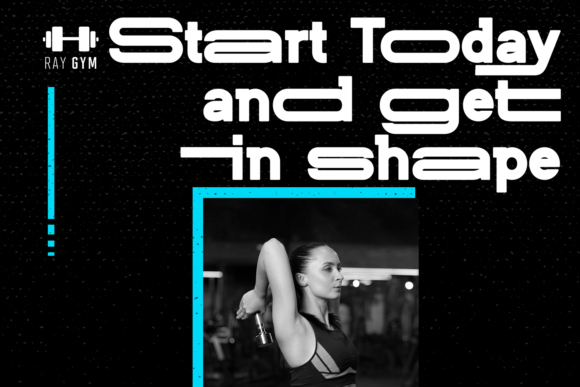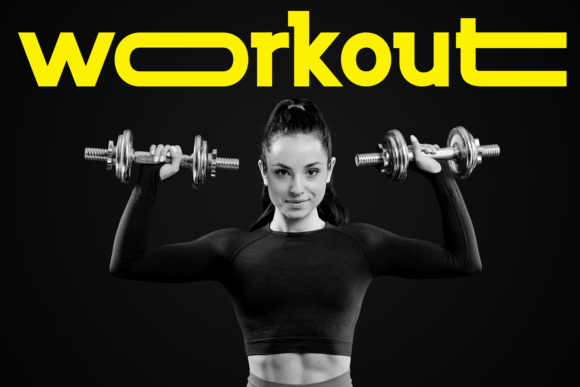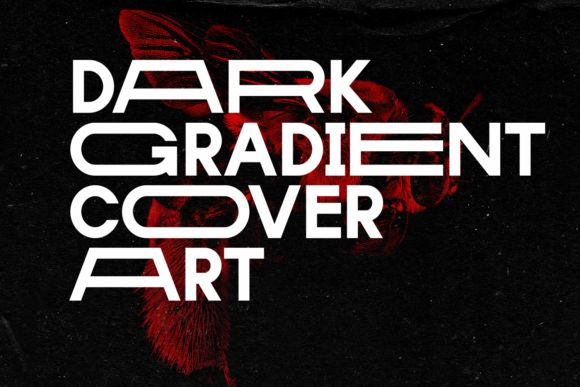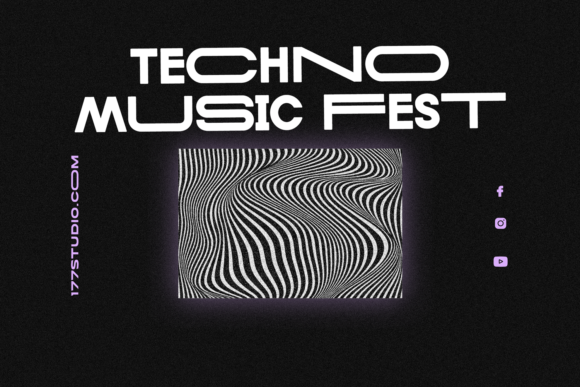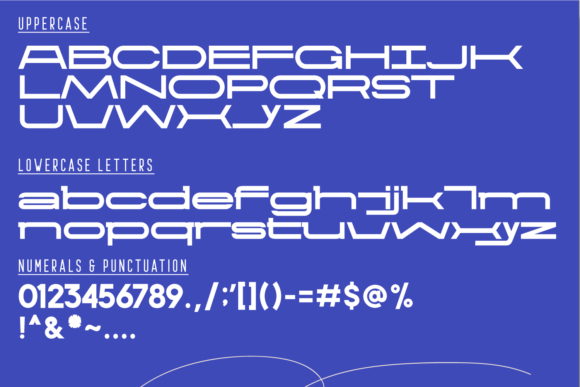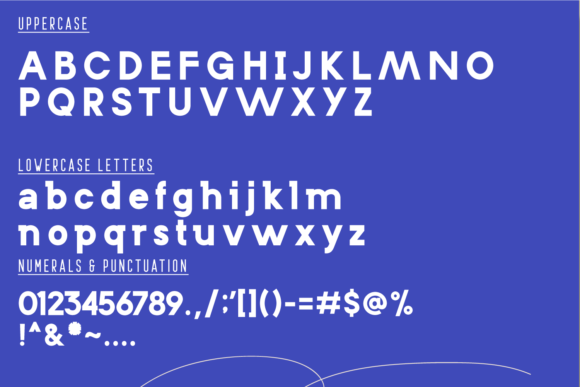
Introducing Gravity Points Font: Elevate Your Designs with Minimal Elegance
In the world of design, typography plays a crucial role in conveying messages, evoking emotions, and creating visual impact. For designers and crafters seeking a font that embodies minimalism and sophistication, Gravity Points Font is an exceptional choice. This display font is meticulously crafted to bring a touch of elegance and modernity to a wide range of projects, making it a versatile addition to your creative toolkit.
What Makes Gravity Points Font Stand Out?
Gravity Points Font is characterized by its clean lines, neat appearance, and minimalistic design. This font is not just a typeface; it’s a statement piece that can elevate your designs, making them stand out in a crowded digital landscape. Whether you’re working on a branding project, a website, a digital art piece, or any other creative endeavor, Gravity Points Font can be seamlessly integrated to add a layer of sophistication and professionalism.
One of the key advantages of Gravity Points Font is its incredible versatility. It can be matched with an astonishingly large set of projects, thanks to its universal appeal and timeless design. From modern digital platforms to traditional print materials, this font adapts effortlessly, ensuring your designs look coherent and visually appealing across different mediums.
Gravity Points Font takes convenience to the next level with its PUA (Private Use Area) encoding. This feature allows designers to access all the glyphs and swashes easily, providing the flexibility to experiment with various typographic elements without hassle. PUA encoding ensures that you can unlock the full potential of the font, making it easier to create unique and captivating designs.
Applications of Gravity Points Font
The applications of Gravity Points Font are vast and varied. Here are a few examples of how you can incorporate this beautiful font into your projects:
- Branding and Logotypes: Use Gravity Points Font to create memorable logos and brand identities that exude elegance and professionalism.
- Web Design: Enhance your website’s typography with Gravity Points Font, making your digital space more inviting and modern.
- Digital Art: Add a textual element to your digital art pieces with a font that complements your artwork without overpowering it.
- Print Materials: From business cards to brochures, Gravity Points Font can elevate your print materials, giving them a sleek and contemporary look.
Tips for Maximizing Gravity Points Font’s Potential
To get the most out of Gravity Points Font, consider the following tips:
- Experiment with Sizes: Play with different font sizes to create visual hierarchy and emphasize key messages.
- Combine with Other Fonts: Gravity Points Font pairs well with a variety of typefaces. Experiment with font combinations to find the perfect match for your project.
- Utilize Swashes and Glyphs: Take advantage of the PUA encoding to access and incorporate swashes and glyphs, adding a creative flair to your designs.
Gravity Points Font is more than just a typeface; it’s a design tool that can transform your creative projects with its minimal elegance and versatility. Whether you’re a professional designer or a crafting enthusiast, this font offers the perfect blend of style, functionality, and ease of use. By incorporating Gravity Points Font into your projects, you’re not just choosing a font; you’re elevating your design language to new heights of sophistication and impact.